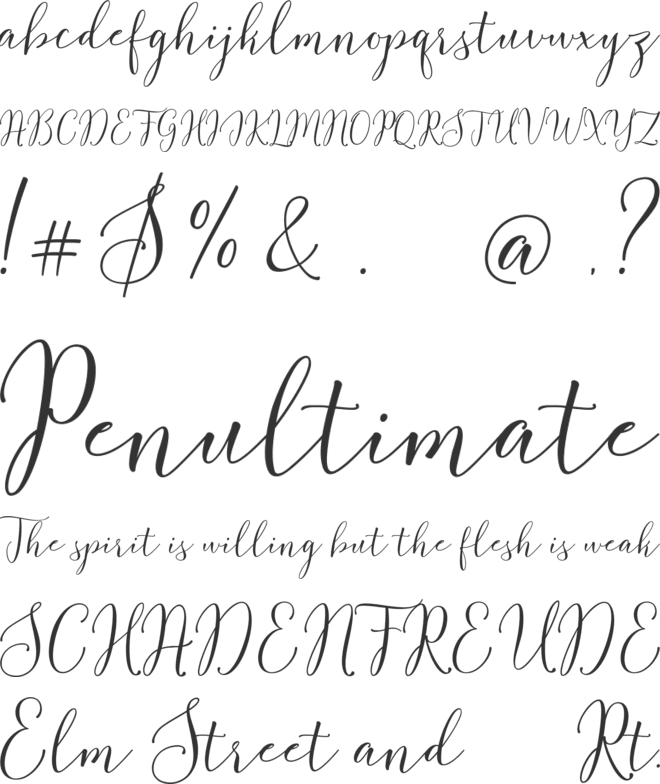
Flash Script DEMO Font
Introducing Flash Script!
This is a new modern script font. This is a beautiful font with an upright style. Made by soft and slowly aims to give the character of modern writing that is smooth, cute, simple, stylish and sweet. This font can be used anywhere as the main font or as a pairing font! Please try and I hope you enjoy it!